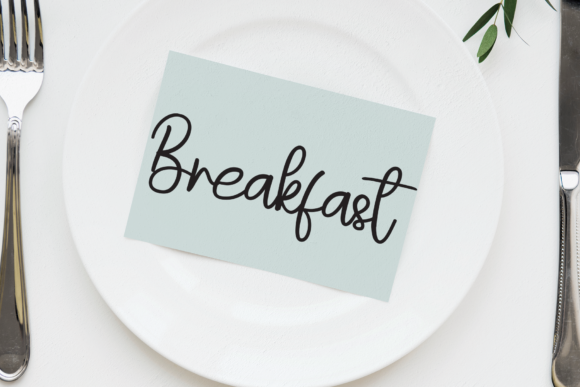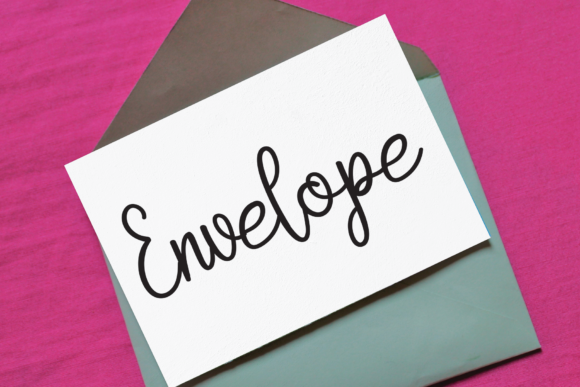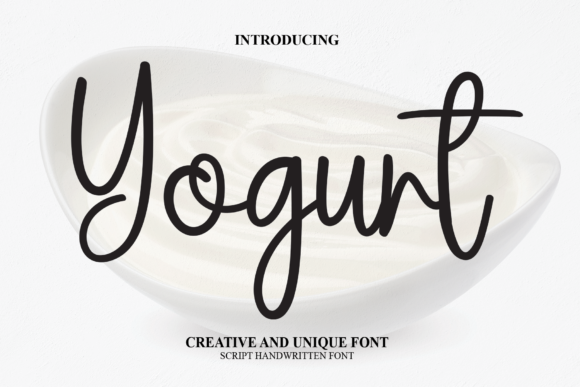
Yogurt Font
About Yogurt Font
Yogurt is a sweet handwritten font that was crafted with great care to produce the expected results. This font can be used to write various kinds of products according to their individual needs.